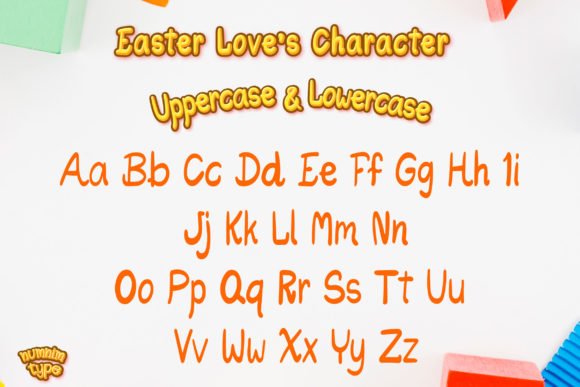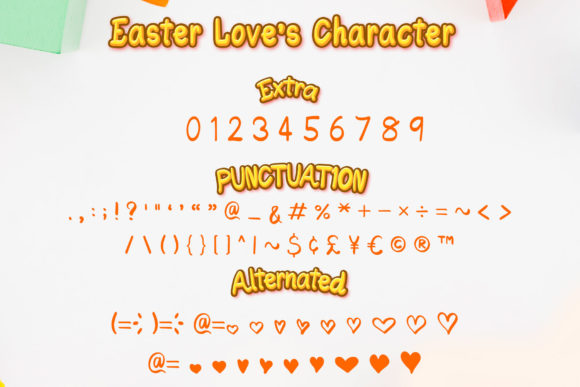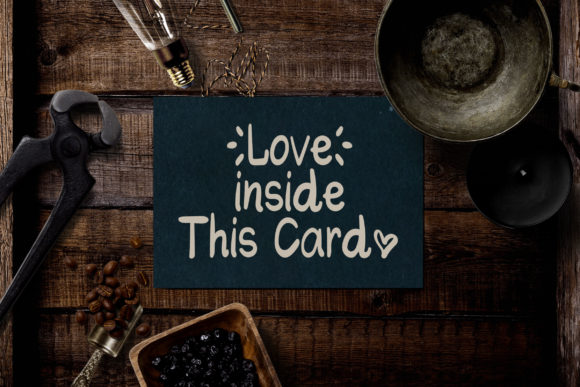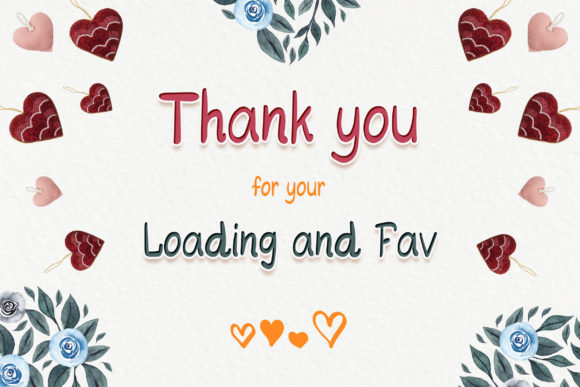
Easter Love Font: The Perfect Addition to Your Easter Designs
Are you looking for a font that captures the sweet and playful spirit of Easter? Look no further than Easter Love Font! This joyful and friendly display font is perfect for creating lovely designs for school or children-related projects. With its cute doodle elements and versatile style, Easter Love Font is sure to fall its way into your heart.
What is Easter Love Font?
Easter Love Font is a display font designed specifically for Easter-themed designs. Its unique and playful style features cute doodle elements, making it perfect for creating fun and engaging designs for kids. The font is highly versatile, allowing you to use it for a wide range of projects, from Easter cards and invitations to educational materials and crafts.
Key Features of Easter Love Font
- Joyful and Friendly Style: Easter Love Font has a joyful and friendly style that is perfect for creating Easter designs that are both fun and engaging.
- Cute Doodle Elements: The font features cute doodle elements, including Easter-themed designs such as eggs, bunnies, and flowers.
- Versatile Style: Easter Love Font has a versatile style that can be used for a wide range of projects, from educational materials to crafts and Easter cards.
Uses for Easter Love Font
Easter Love Font is perfect for a wide range of Easter-themed designs, including:
- Easter Cards and Invitations: Create fun and engaging Easter cards and invitations using Easter Love Font.
- Educational Materials: Use Easter Love Font to create educational materials, such as worksheets and activity sheets, for kids.
- Crafts: Easter Love Font is perfect for creating Easter-themed crafts, such as Easter egg decorations and bunny masks.
- Social Media Posts: Use Easter Love Font to create fun and engaging social media posts for Easter.
Tips for Using Easter Love Font
Here are a few tips for using Easter Love Font:
- Experiment with Different Sizes and Colors: Easter Love Font looks great in a variety of sizes and colors, so don’t be afraid to experiment and find the perfect combination for your design.
- Pair with Other Easter-Themed Elements: Pair Easter Love Font with other Easter-themed elements, such as Easter eggs and bunnies, to create a cohesive and fun design.
- Use for Headings and Titles: Easter Love Font is perfect for headings and titles, so use it to add a touch of Easter fun to your designs.
Easter Love Font is a joyful and friendly display font that is perfect for creating lovely Easter designs for school or children-related projects. With its cute doodle elements and versatile style, Easter Love Font is sure to fall its way into your heart. Whether you’re a designer, crafter, or teacher, Easter Love Font is a great addition to your font collection.